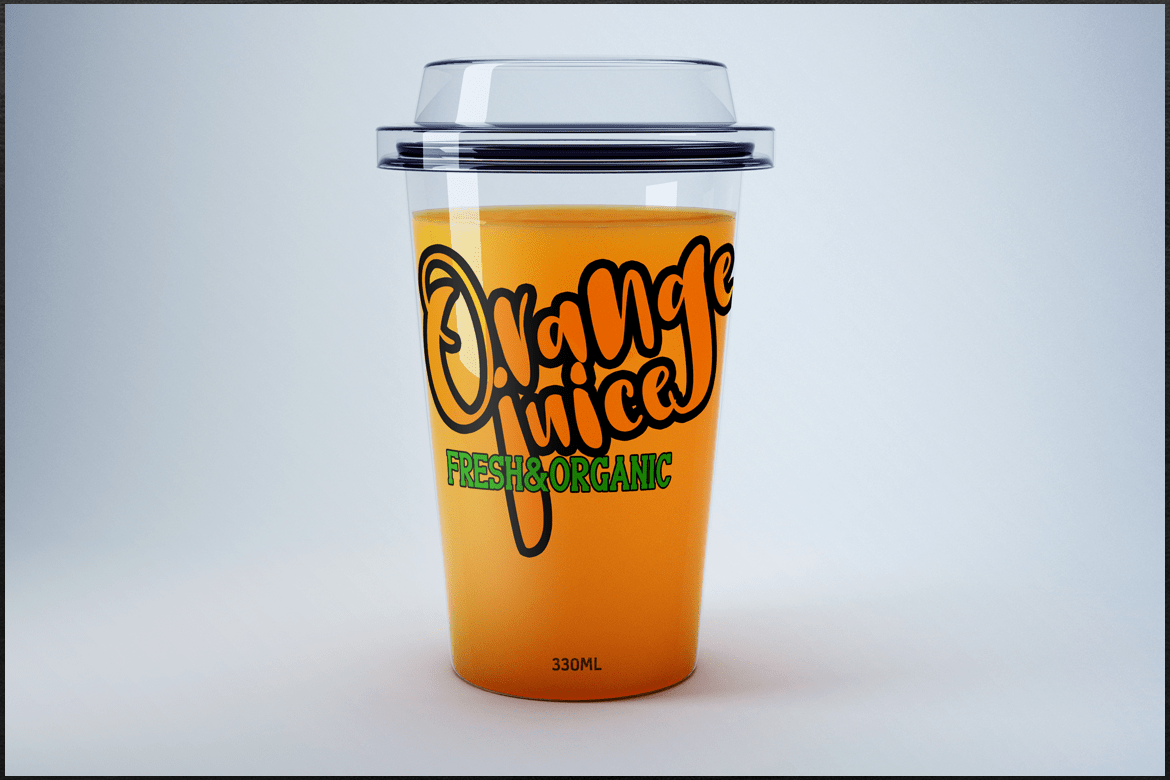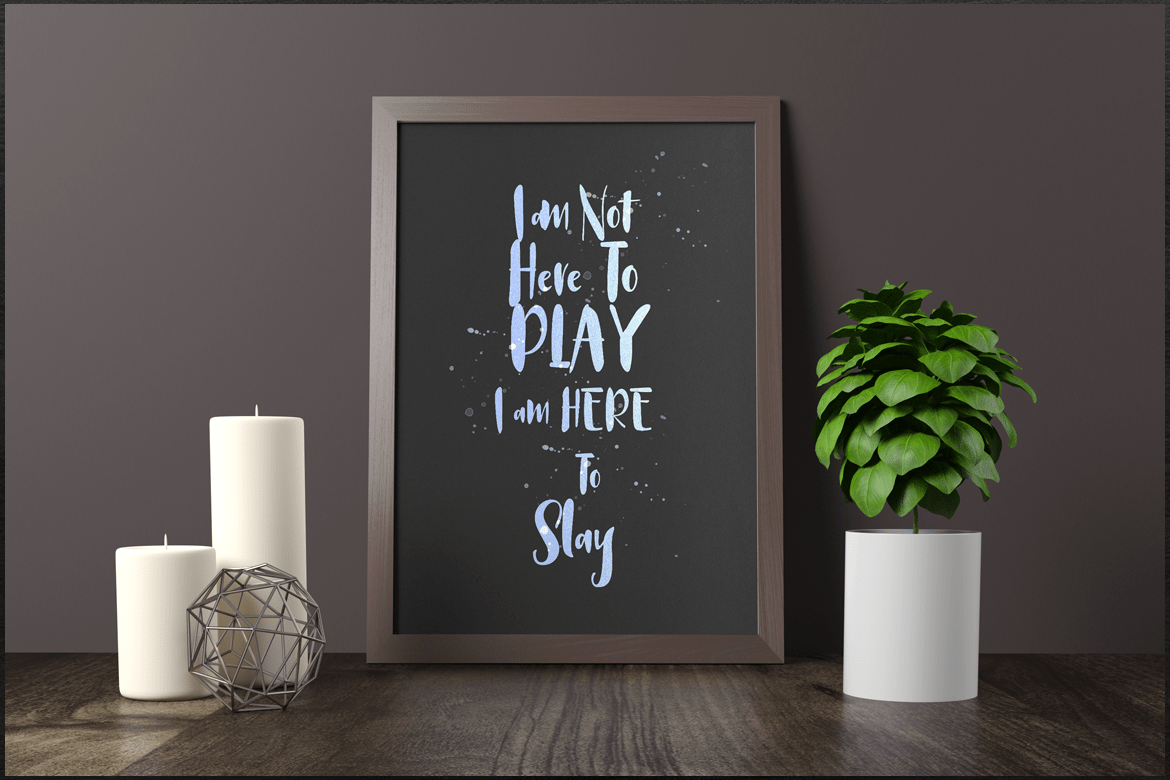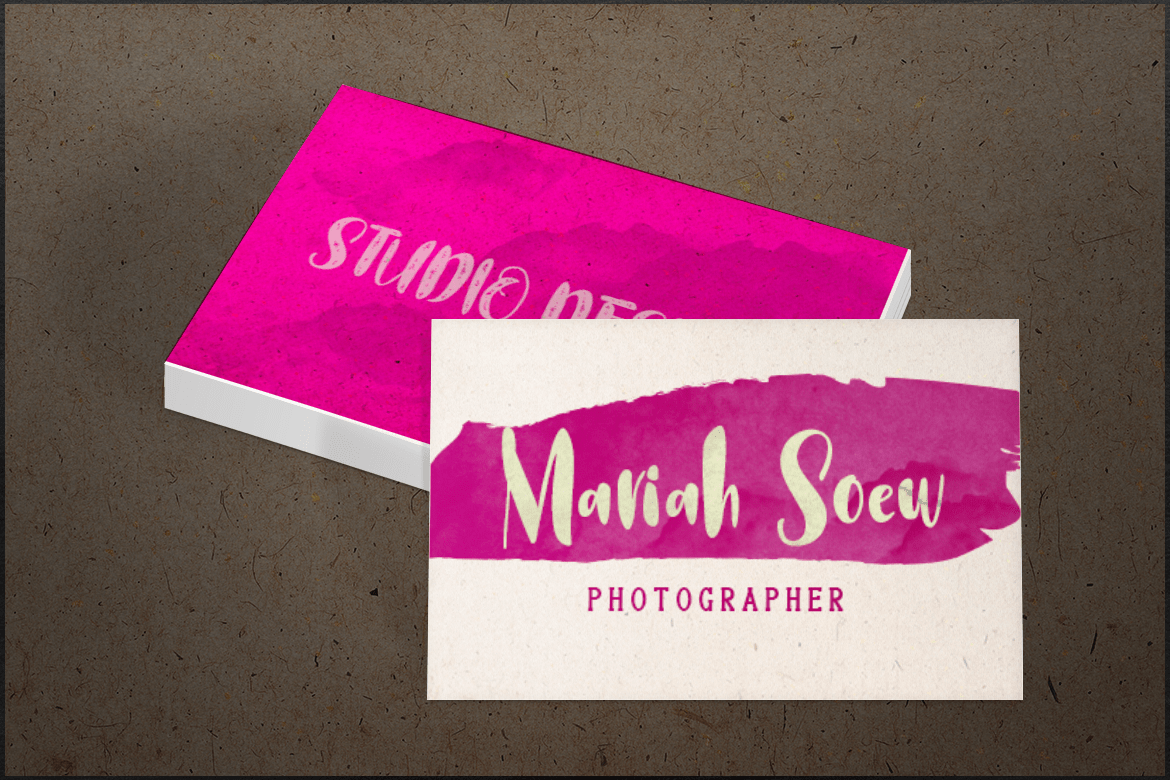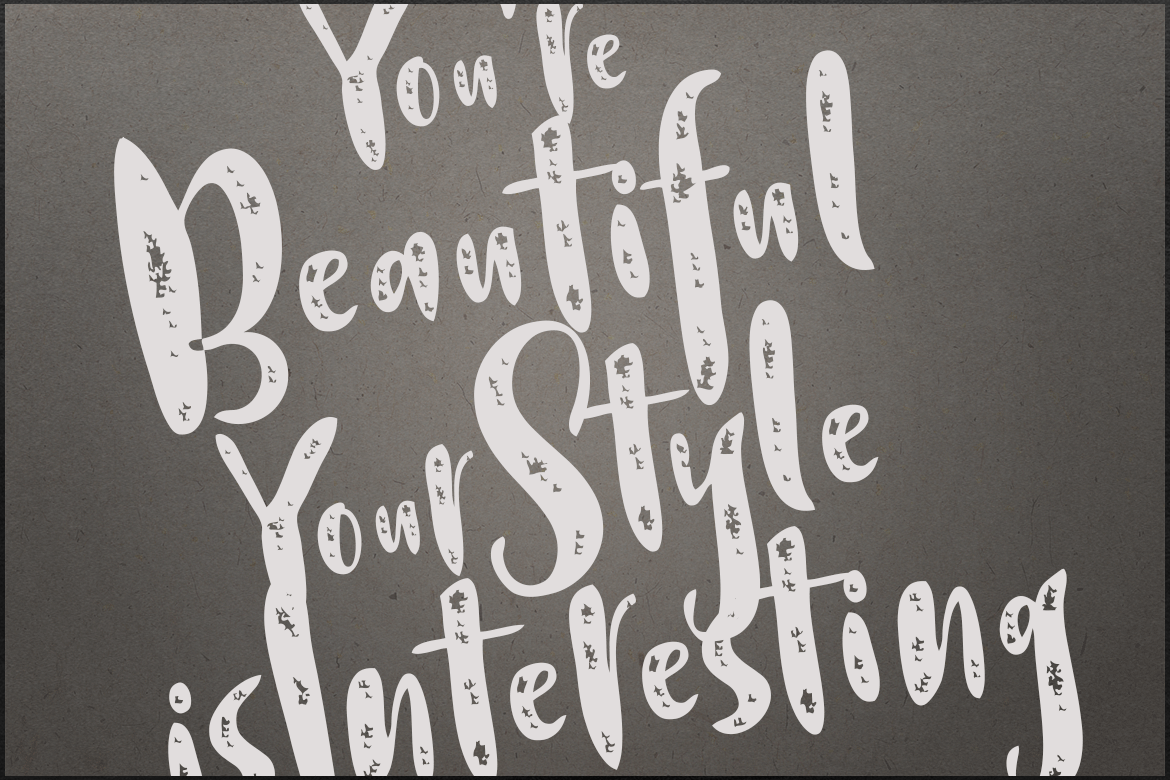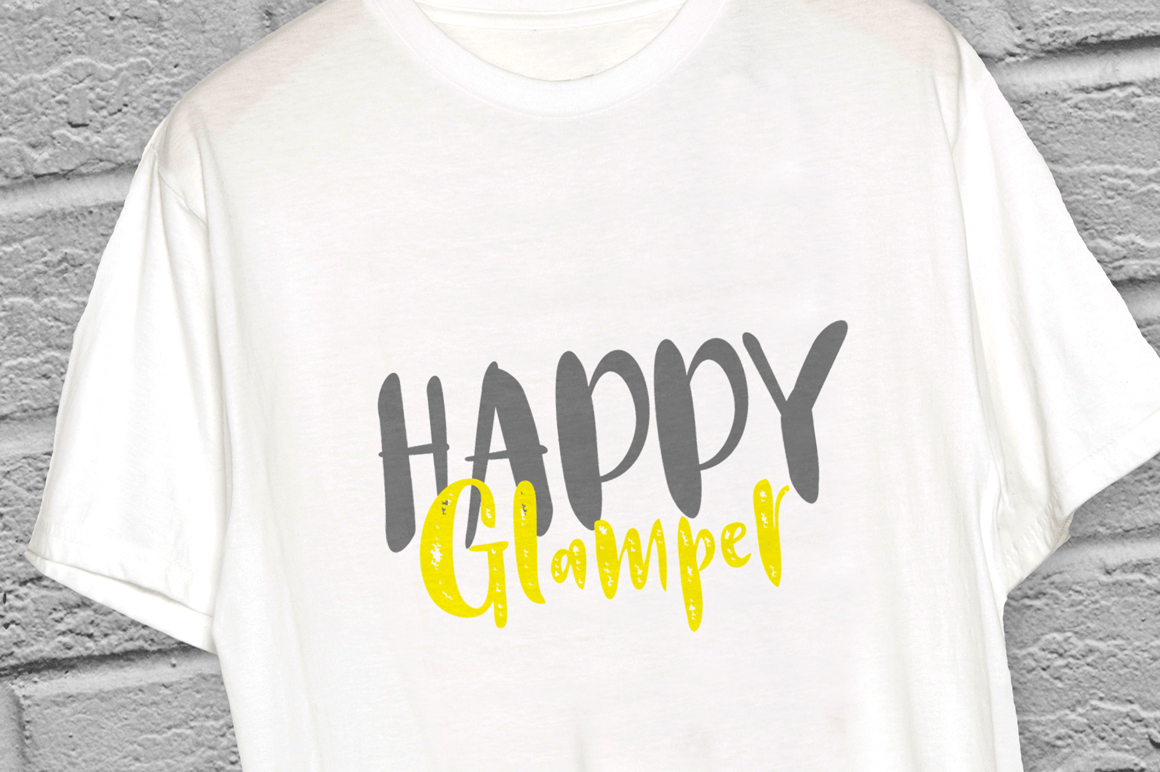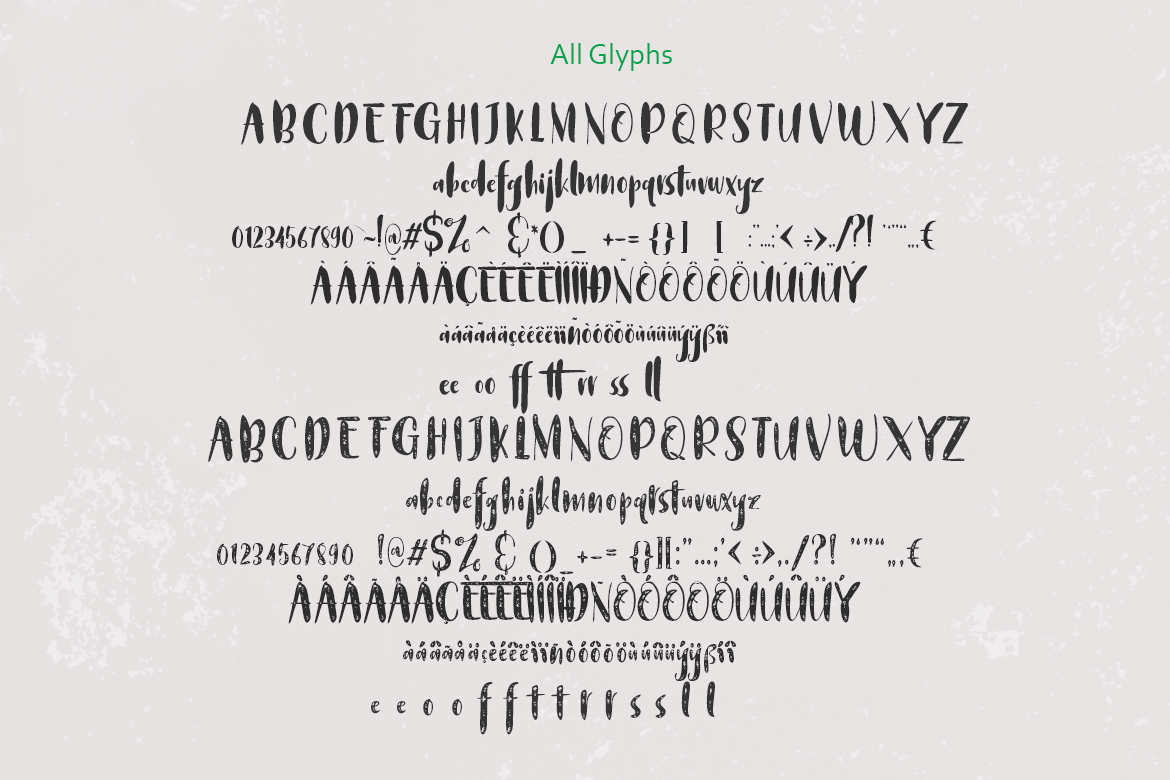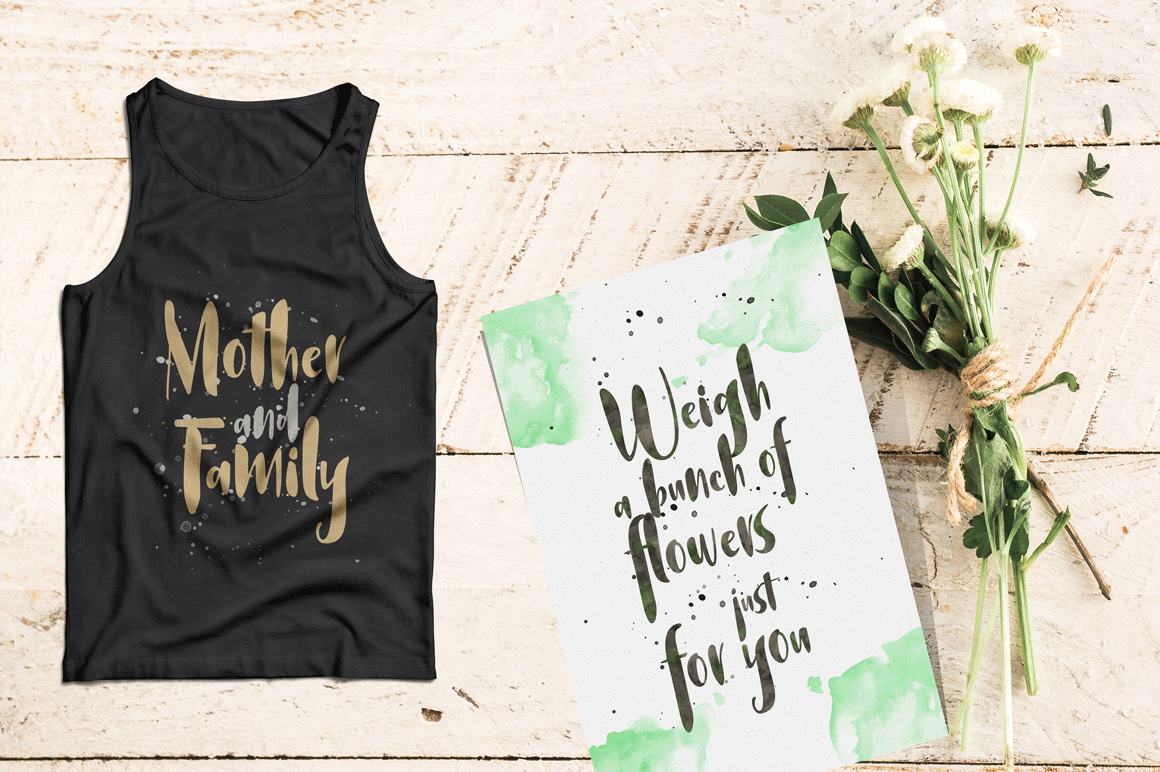
Stalker
Font Family by Groen Studio
Stalker are tow styles of fonts, it is that the fonts brush that has a different style. This is the perfect choice for personal branding project. Can be used for various purposes.such as headings, logos, wedding invitations, t-shirts, letterhead, lable, news, posters, badges etc. To enable the OpenType Stylistic alternates, you need a program that supports OpenType features such as Adobe Illustrator CS, Adobe Indesign and CorelDraw X6-X7.
- Stalker
- Stalker Sponge
Stalker Regular
Stalker Sponge